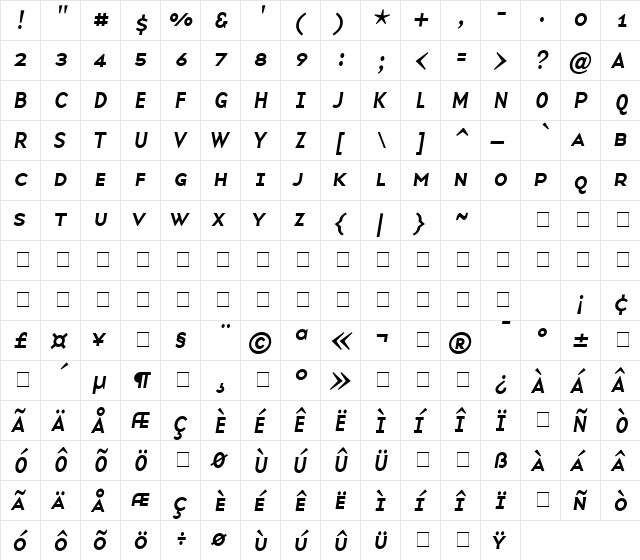
Base9SC SCI Font Preview
Base9SC SCI
Base9SC SCI Font Details
Design Context for Base9SC Typeface
Base9SC is a composed and adaptable typeface that performs quietly and consistently across a wide range of design contexts.